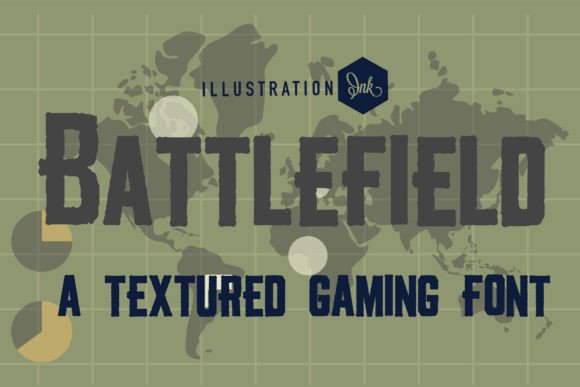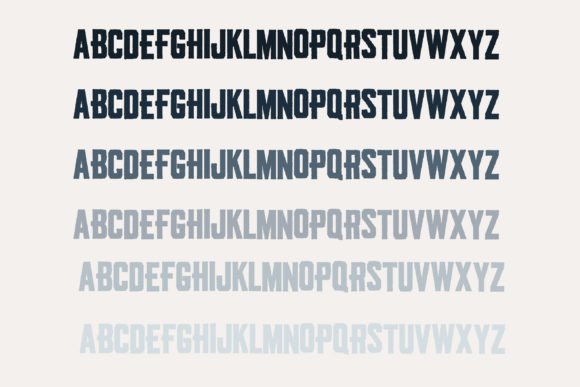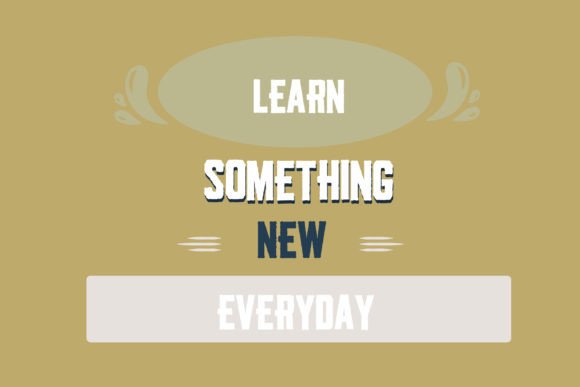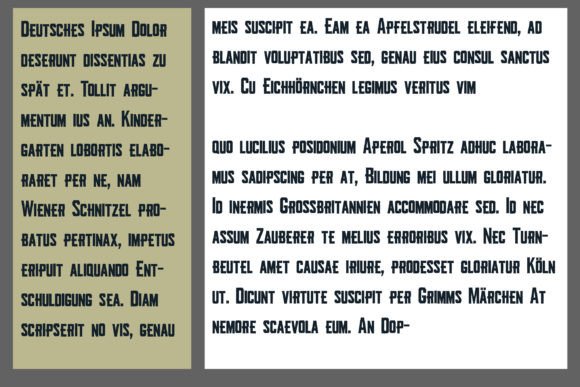
Battlefield Font
About the Battlefield Font
Elevate your designs with Battlefield Font, a font that combines sophistication with readability. Battlefieldlines is a bold, energetic sans serif font designed especially for sports. Its rugged texture adds depth and intensity to your text, making it perfect for posters, jerseys, and team logos. With its strong lines and dynamic appearance, Battlefieldlines stands out on any playing field.
Battlefieldlines excels in large-scale applications like headlines, posters, and branding for sports-related products or events where a powerful, impactful statement is needed. Its rugged texture works particularly well on packaging for energy drinks or outdoor gear. However, its strong weight and texture make it less suitable for body text or UI elements where readability is paramount.
Pairing Battlefieldlines with a clean sans-serif like Open Sans for body copy provides excellent contrast and readability. For a more refined look, consider pairing it with a classic serif font like Garamond for secondary text elements, creating a balance between strength and sophistication. Avoid pairing it with other overly textured or highly stylized fonts, as this can create visual clutter.
The overall personality of Battlefieldlines is bold, aggressive, and energetic, ideal for brands aiming to convey strength, action, and a competitive spirit.
Battlefield Font Example